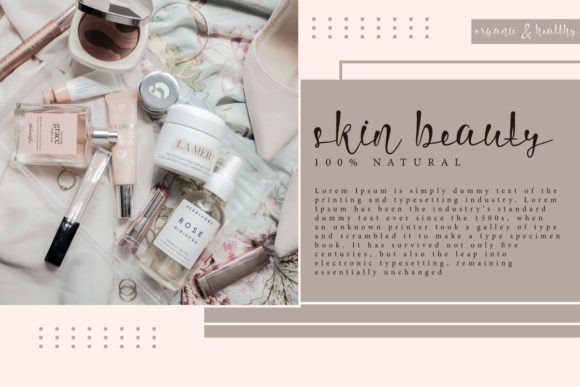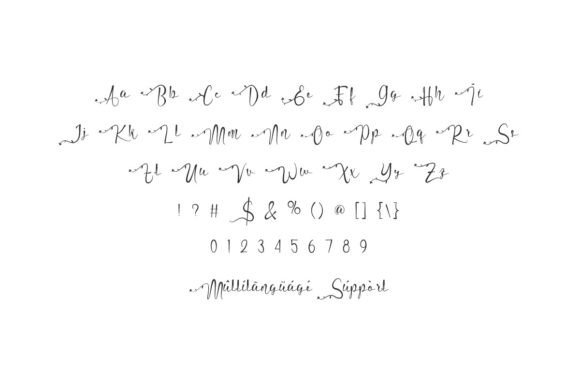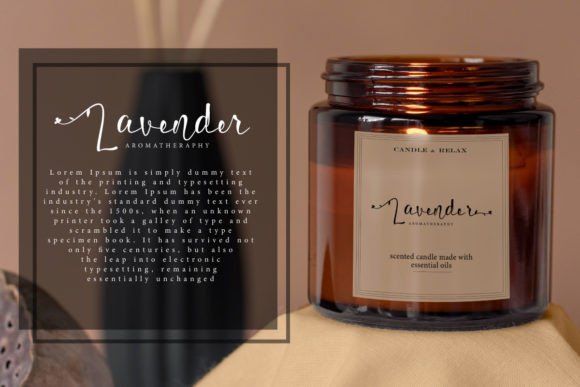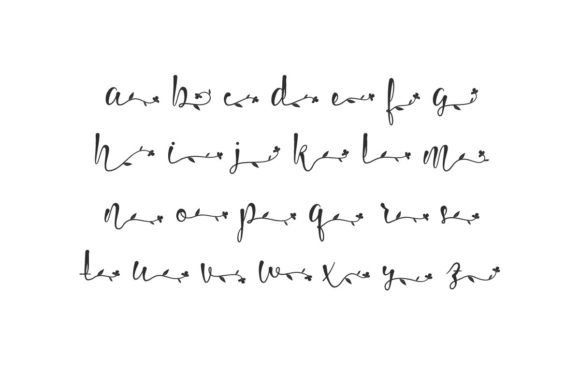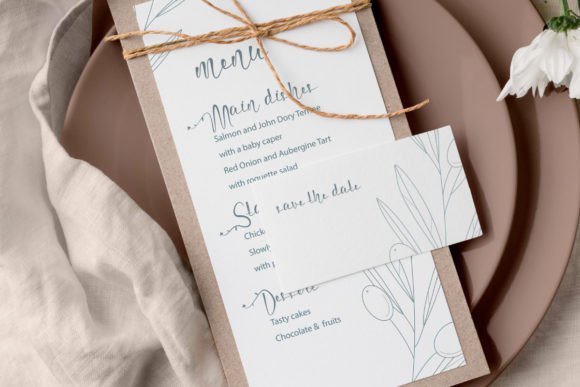
About Median Florets Font
Introducing “Median Florets” – A Flowing Handwritten Font with Timeless Elegance!
**”Median Florets”** isn’t just another font; it’s a flowing handwritten typeface designed to bring an elegant touch to your favorite projects. With its distinct and timeless style, this font is perfect for creating spectacular designs that capture attention and admiration.
With **”Median Florets,”** you’ll discover a font that exudes elegance and charm. Its flowing and handwritten appearance adds a unique character to your text that’s both distinctive and sophisticated. Whether you’re working on invitations, branding, headlines, or any creative endeavor, “Median Florets” will elevate your designs to new heights.
Imagine using **”Median Florets”** to craft exquisite invitations that leave a lasting impression, creating a brand identity that’s both distinctive and timeless, designing captivating headlines that draw readers in, or simply using it in any project where elegance and sophistication are key.
Whether you’re a design enthusiast seeking a font that exudes timeless elegance or a professional looking to add a touch of sophistication to your work, **”Median Florets”** is the font that can make your designs truly spectacular.